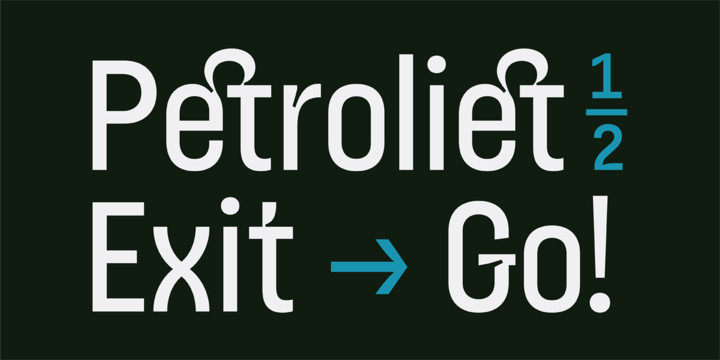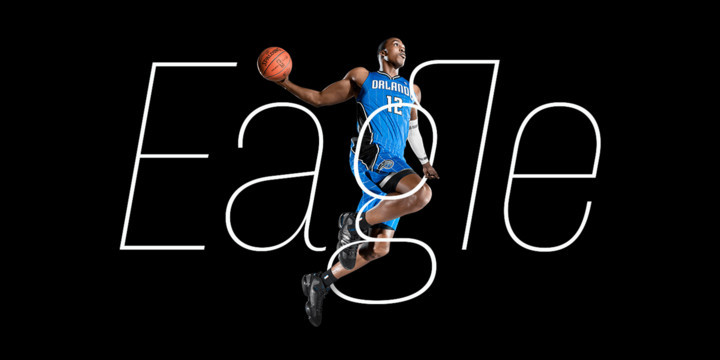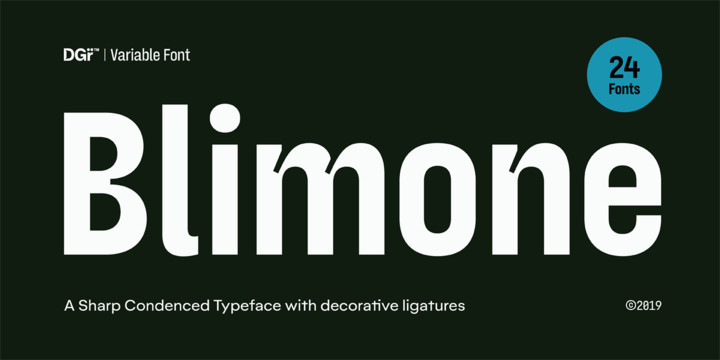
Blimone Font Family
Blimone Inspired from beautiful Art Nouveau styled and pop culture, Blimone approach with geometric shapes and dynamic humanist blends several calligraphic concepts to create a modernist style but with a strong and unique look.
The subfamily Blimone ink-traps and the italic characters to appear monumentally “Sharp” in large sizes and jaggedly imperfect in small sizes.
The Bilmone font family includes 24 fonts, Support for the variable version of the font, you can choose the individual thickness and the slopes.
Support has many fancy ligatures, common standard ligatures are found in some fonts include fi, ff, ffi, fy, ti, tt, ty, tti, ttl , ffk, ft and the discretionary ligatures are gi, ggi, gt, gk, gj, gl, ggl, gh, gti,ct, cti, cty, et, eti, ety, st, and more. all intended to create a natural look that imitates the flow and spontaneous joins of handwriting.OpenType also supports tabular lining numbers, fractions, Numerator and Denominator.